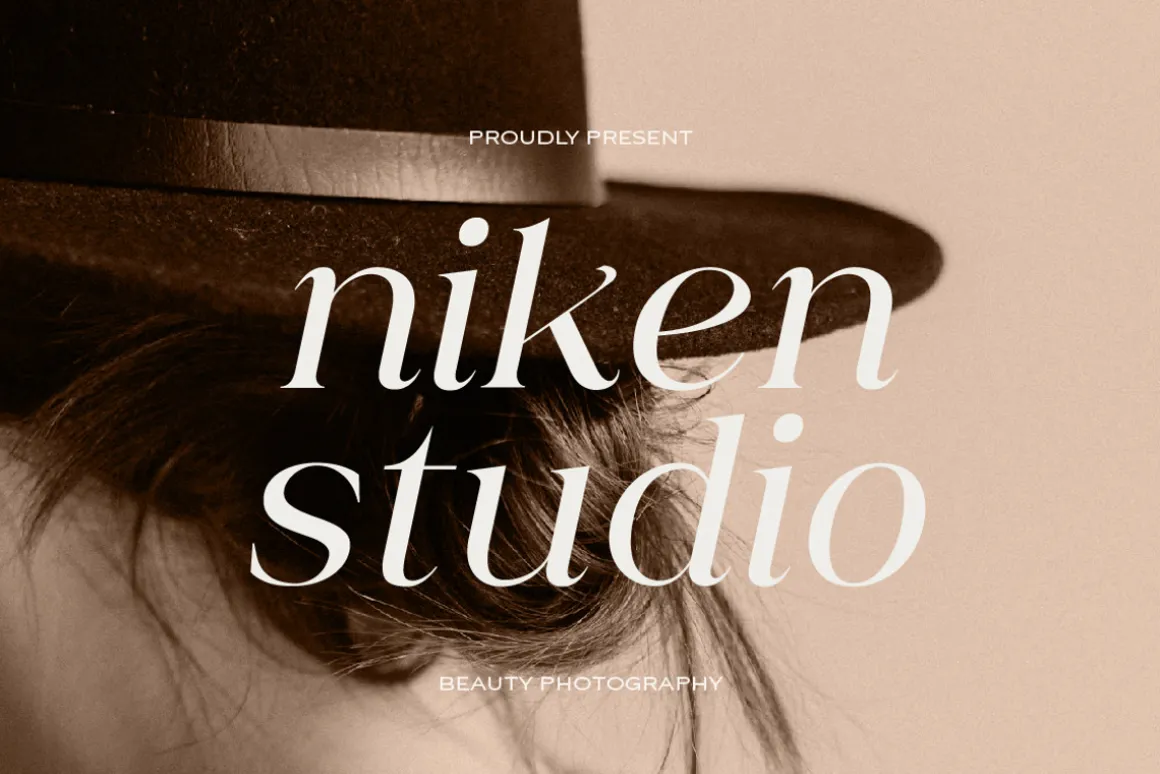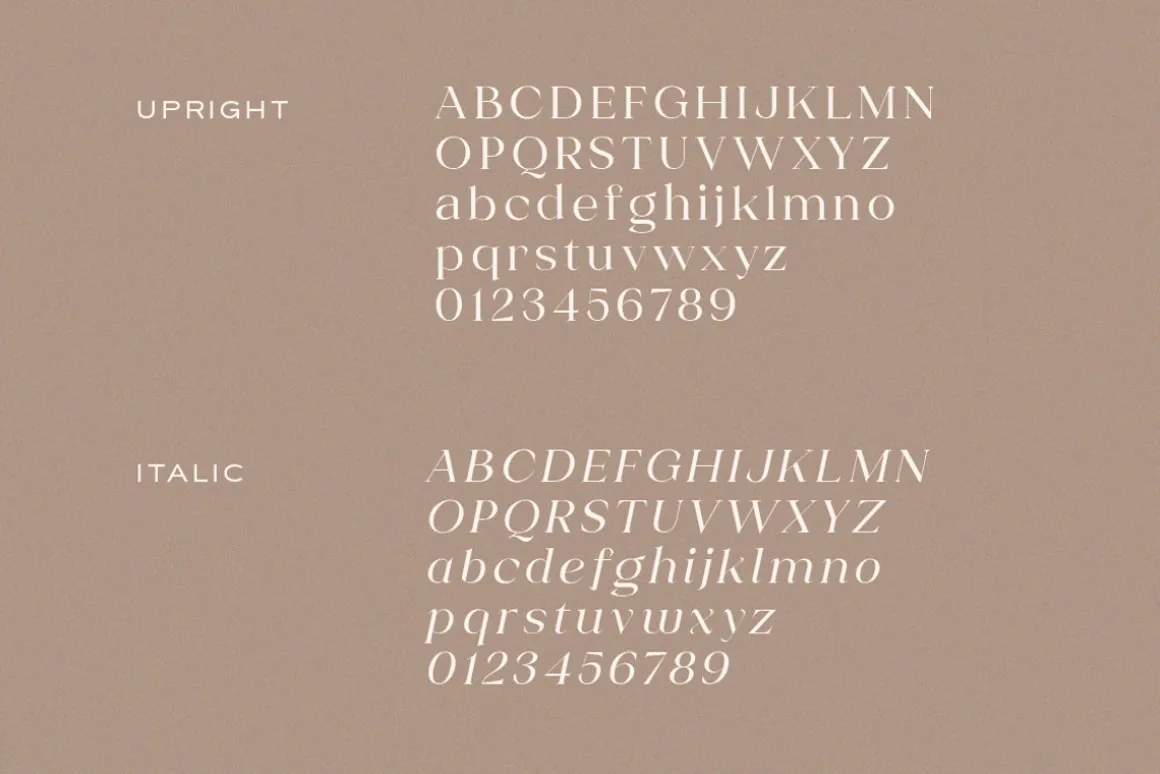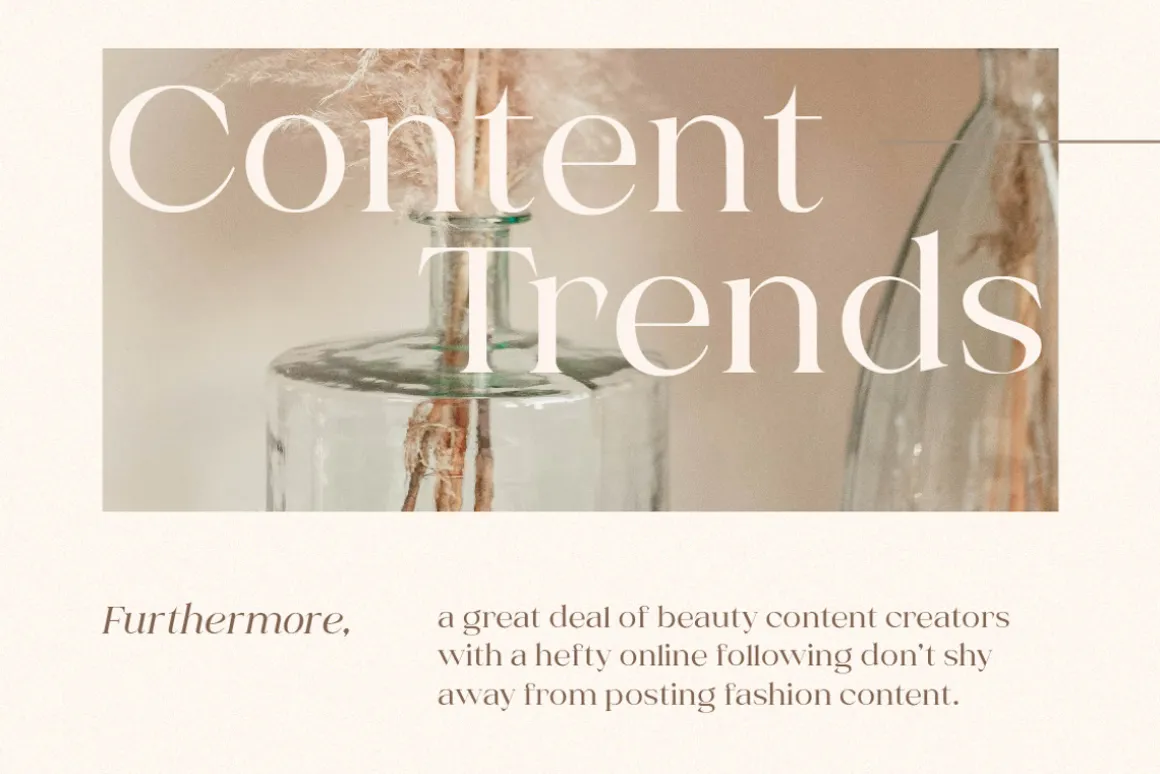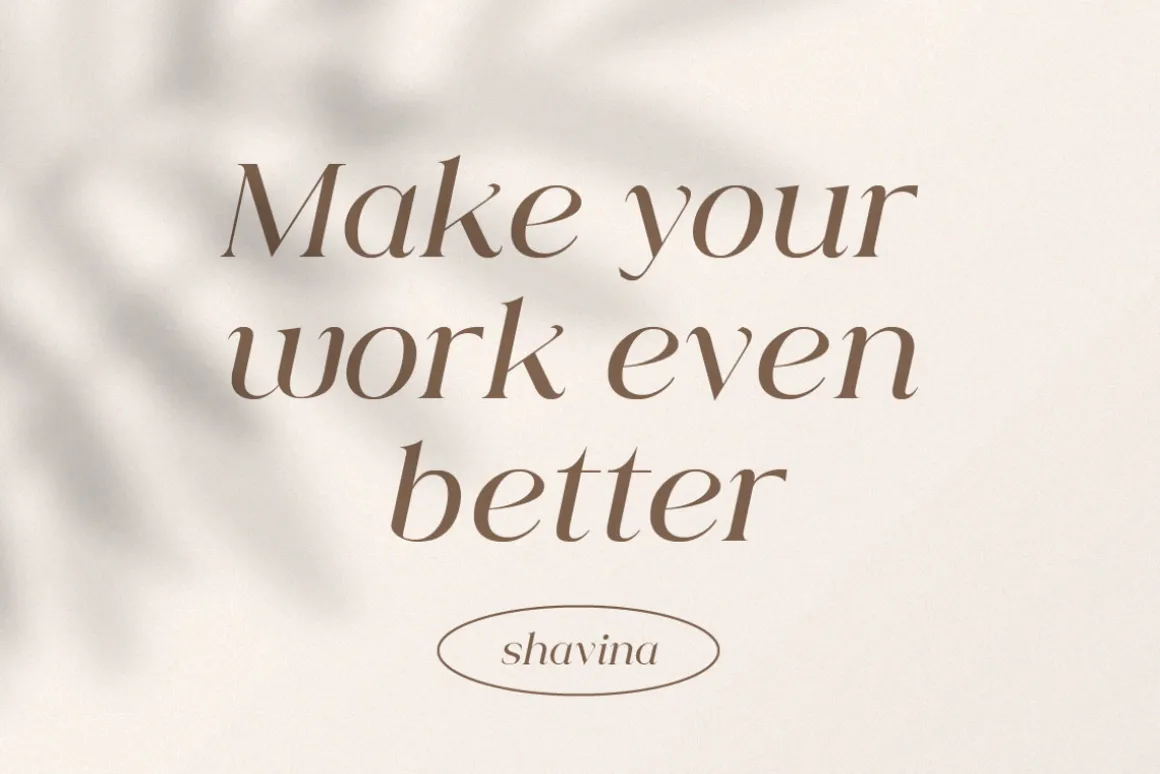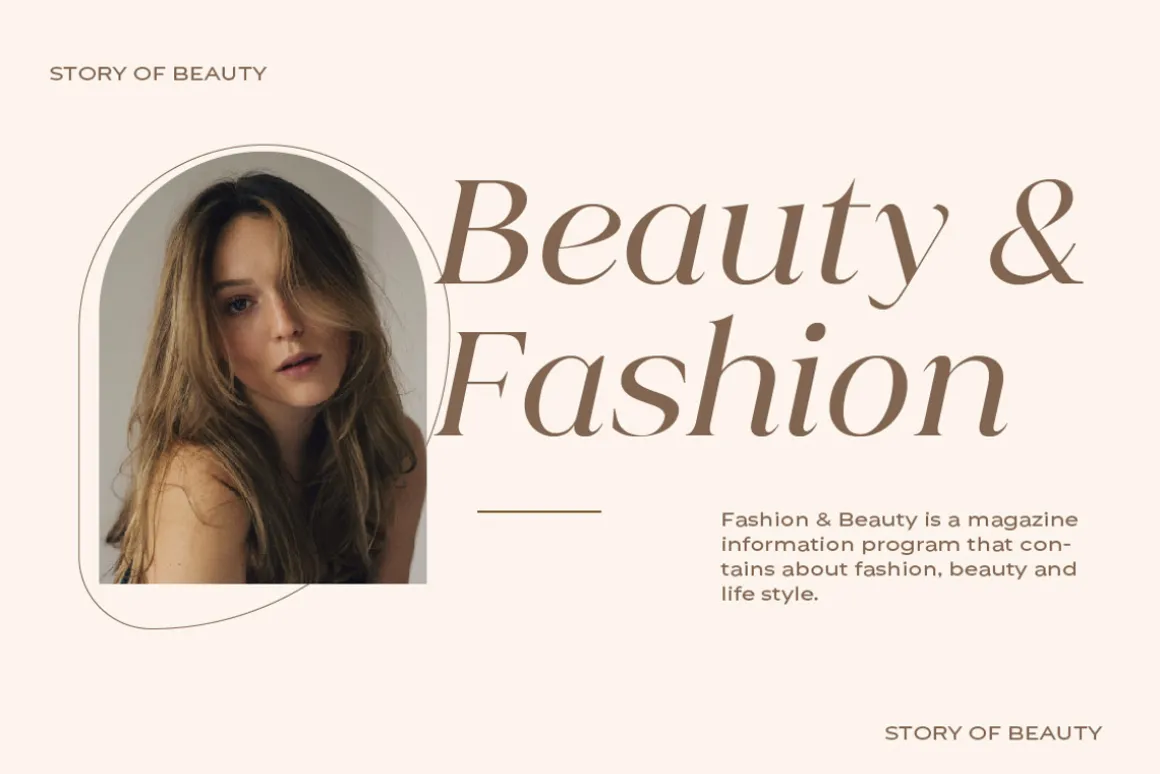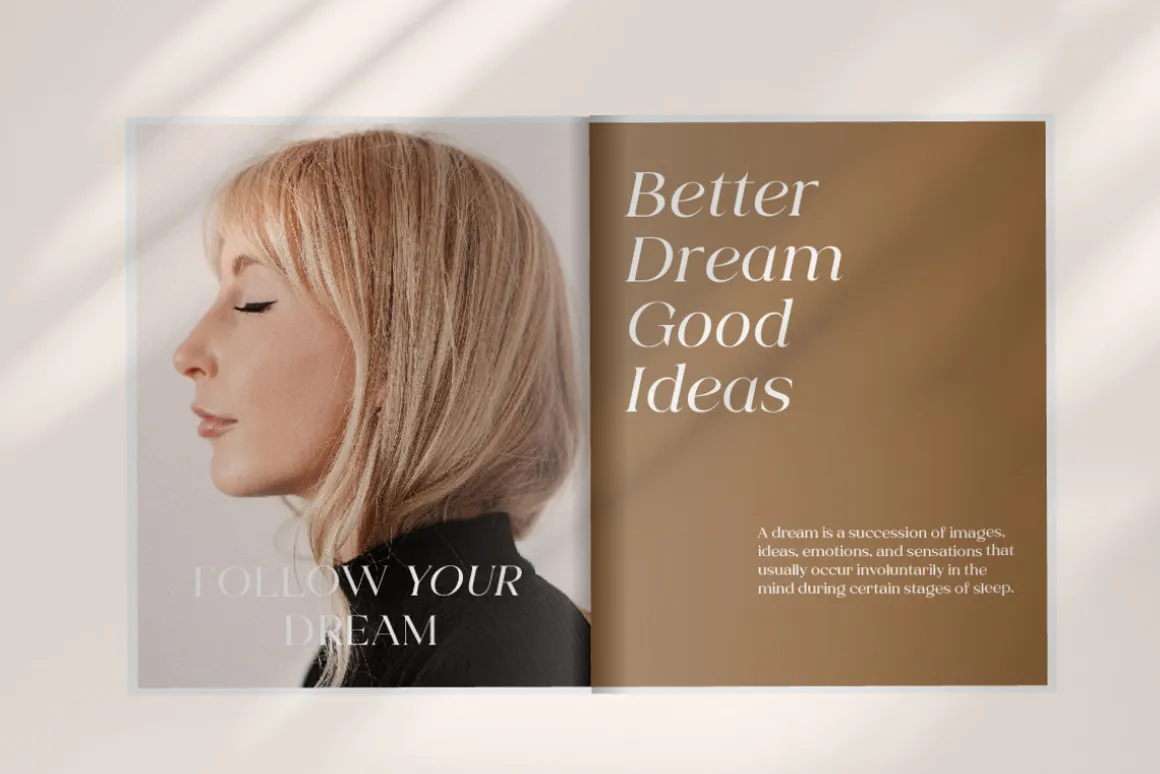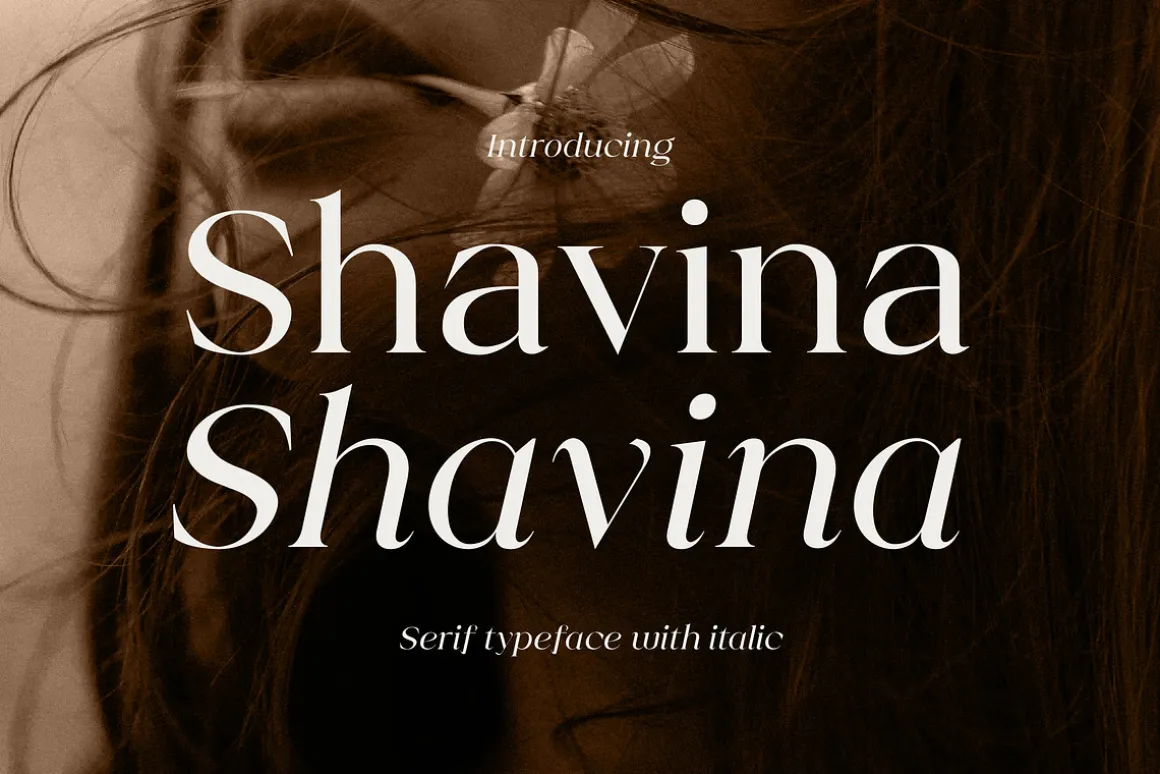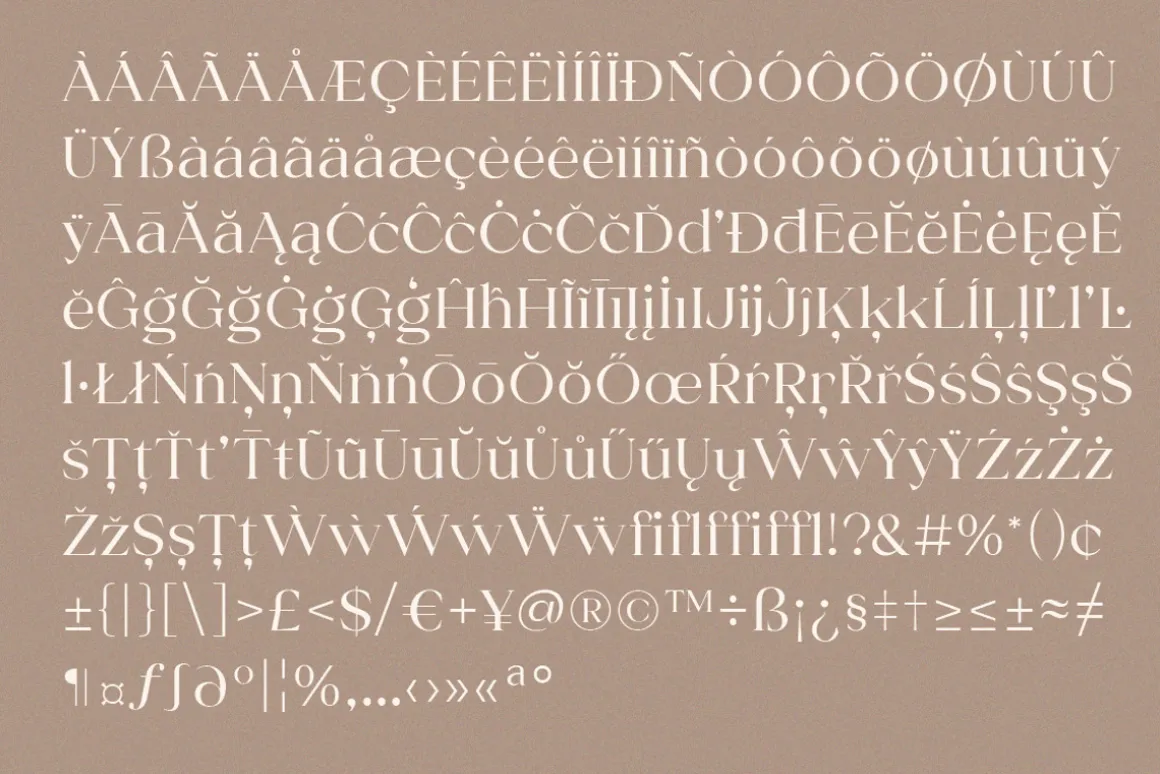
Shavina Serif is an elegant and versatile typeface that seamlessly blends traditional sophistication with a contemporary aesthetic. Crafted with meticulous attention to detail, this serif font exudes a sense of timeless refinement, making it suitable for a wide range of design applications.
Inspired by classical typography, Shavina Serif incorporates modern elements to create a harmonious balance between tradition and innovation. The typeface draws its inspiration from the enduring beauty of serifs, adding a touch of grace to any project.